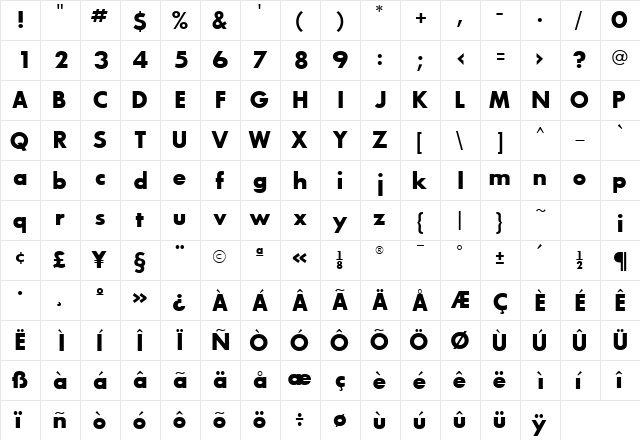
BouganBlackSSK Regular
Design Context for BouganBlackSSK Typeface
BouganBlackSSK takes a measured approach to typography — its balanced proportions and neutral character make it a reliable workhorse for both digital and print work.